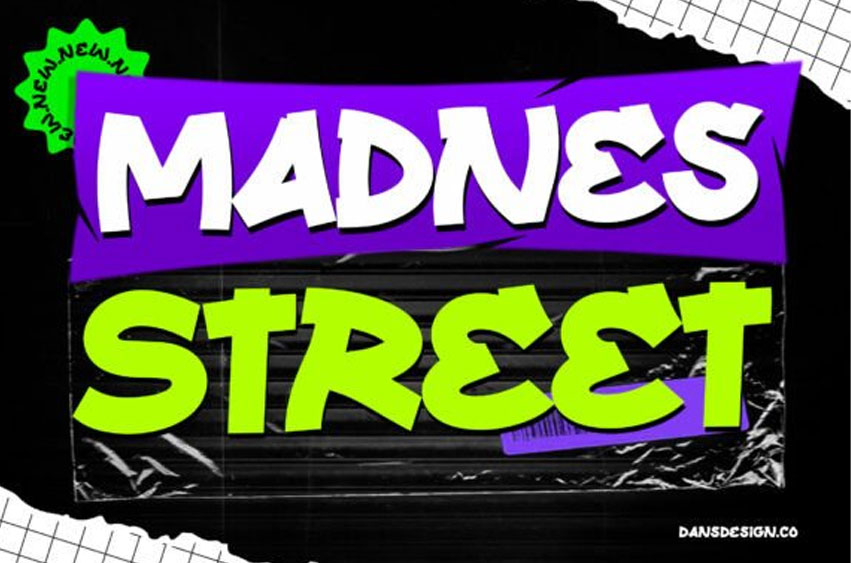
Madnes Street Font
Madnes Street Font is a wild, energetic graffiti display font that blends comic-style boldness with street tagging chaos. Hand-drawn with attitude and filled with punchy curves and offbeat balance, this font explodes off the screen—perfect for youth culture designs, rebellious branding, and everything loud, bold, and unapologetically urban.
Infused with playful defiance and street-smart aesthetics, Madnes Street makes your logos, music covers, and social media visuals stand out with bold, neon-style expression.